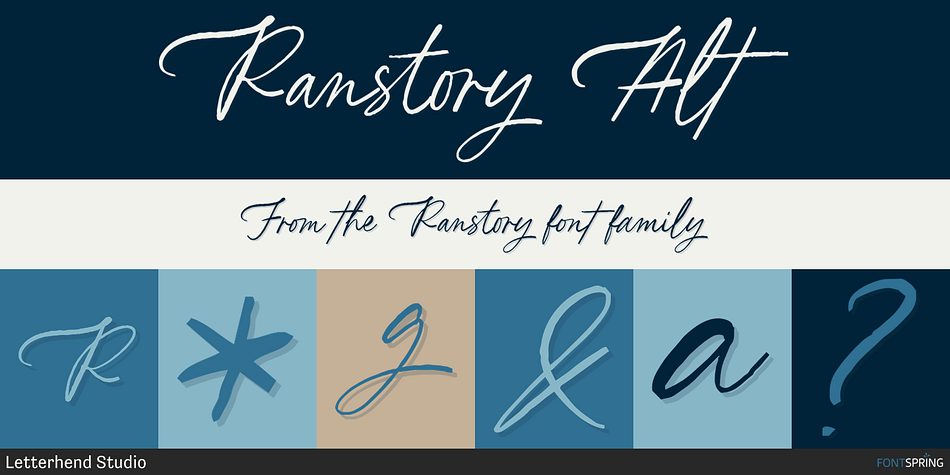
Ranstory Alt
Designed by Hendry Juanda, Ranstory is a brush script font family. This typeface has two styles and was published by Letterhend Studio.
Introducing Ranstory, a sophisticated handwritten script font with a beautifully organic feel. Crafted for designers who seek elegance and personality, Ranstory is ideal for everything from wedding stationery to logo design, product packaging, and quotes.
Its delicate yet bold stokes make every design stand out, offering the perfect balance of classic and contemporary style. Add a personal, artistic flair to your projects with Ranstory!
- Alternates & Ligatures
- Multilingual Support